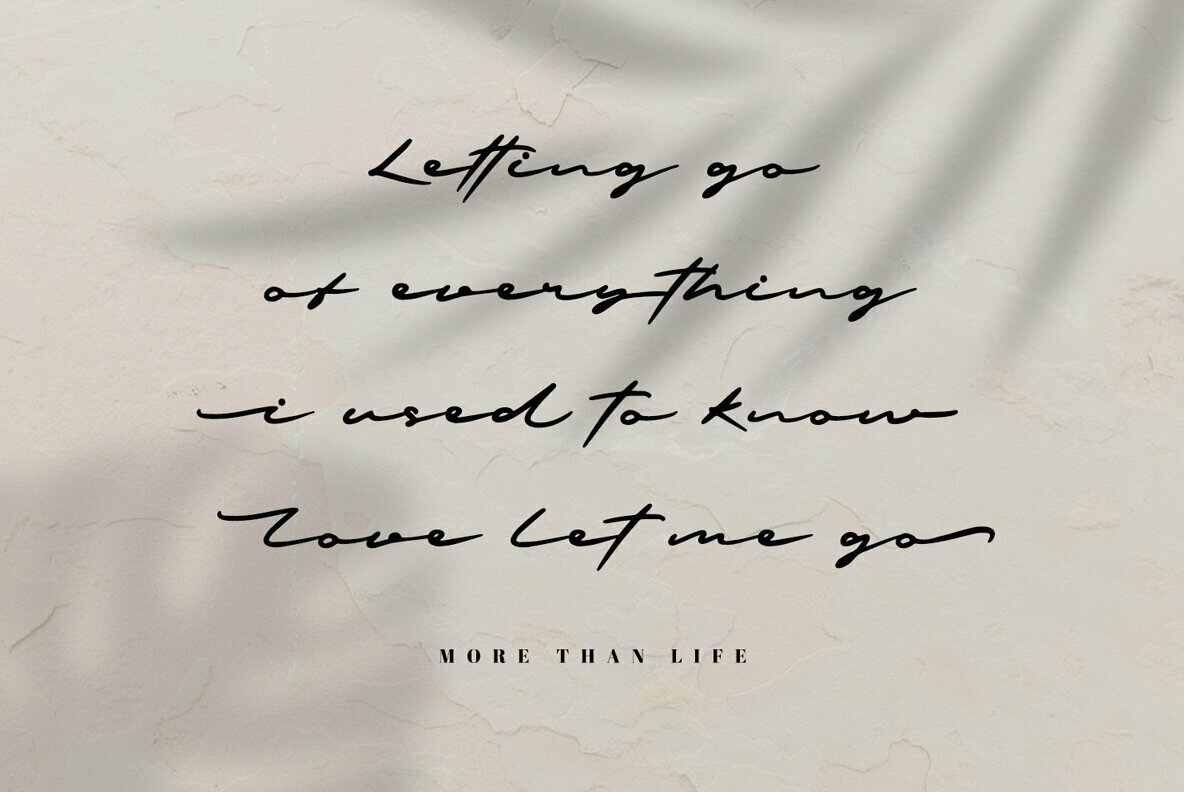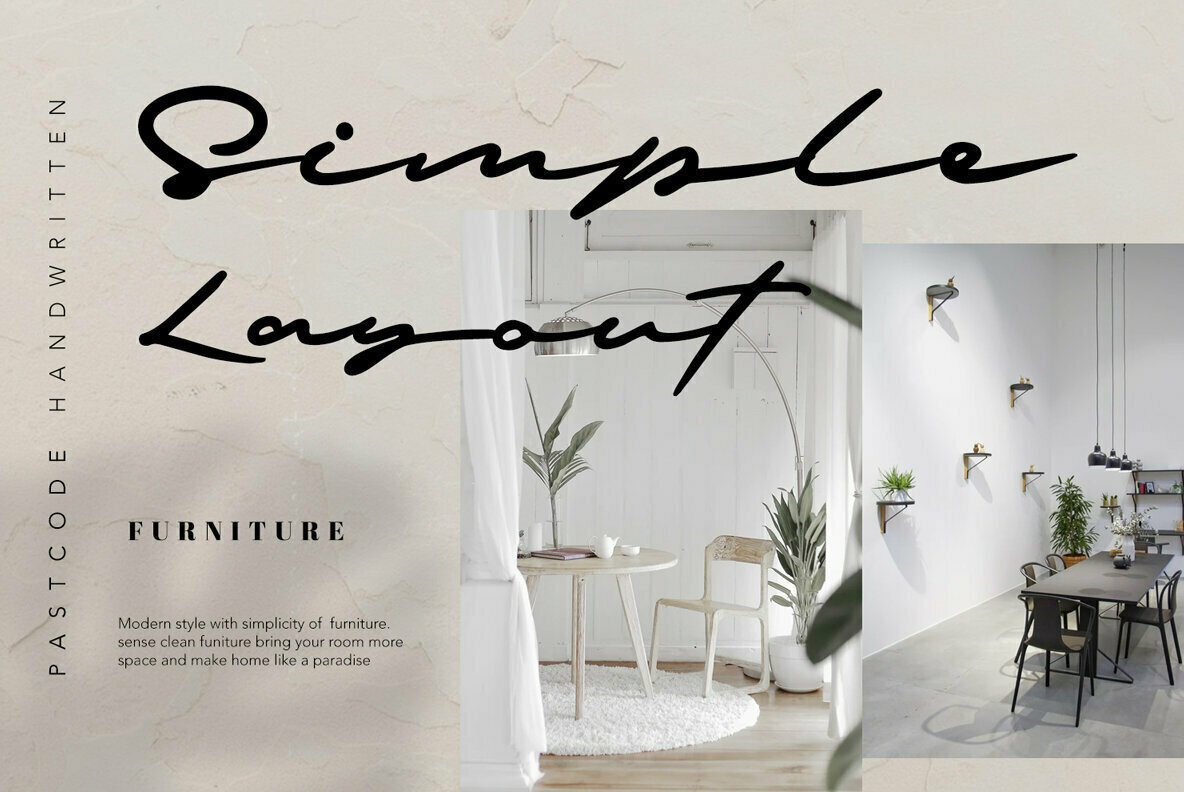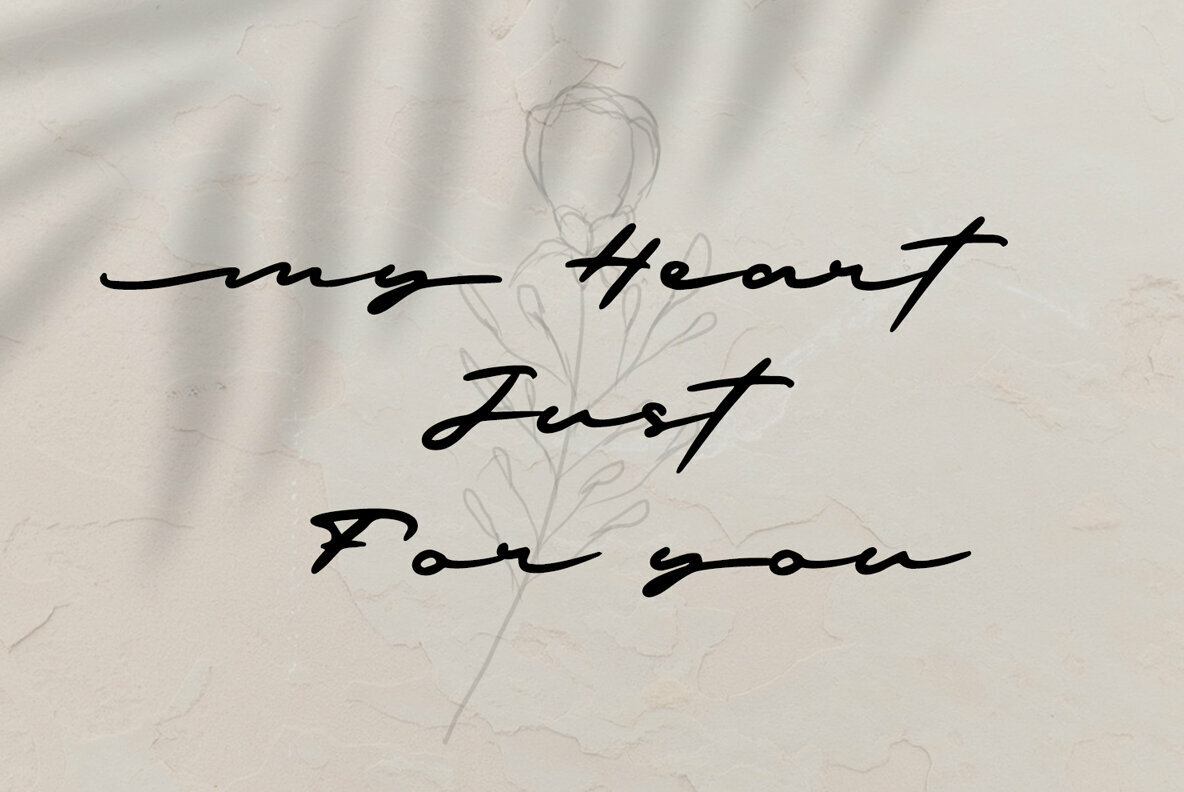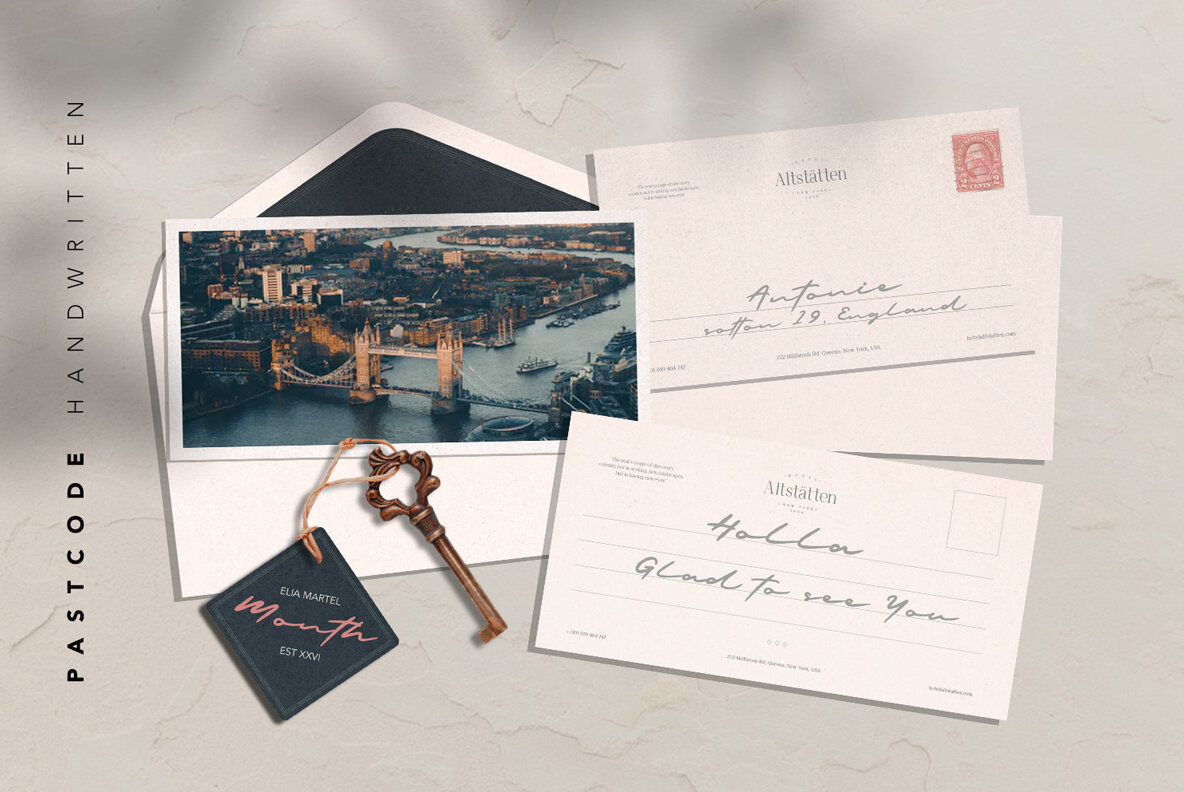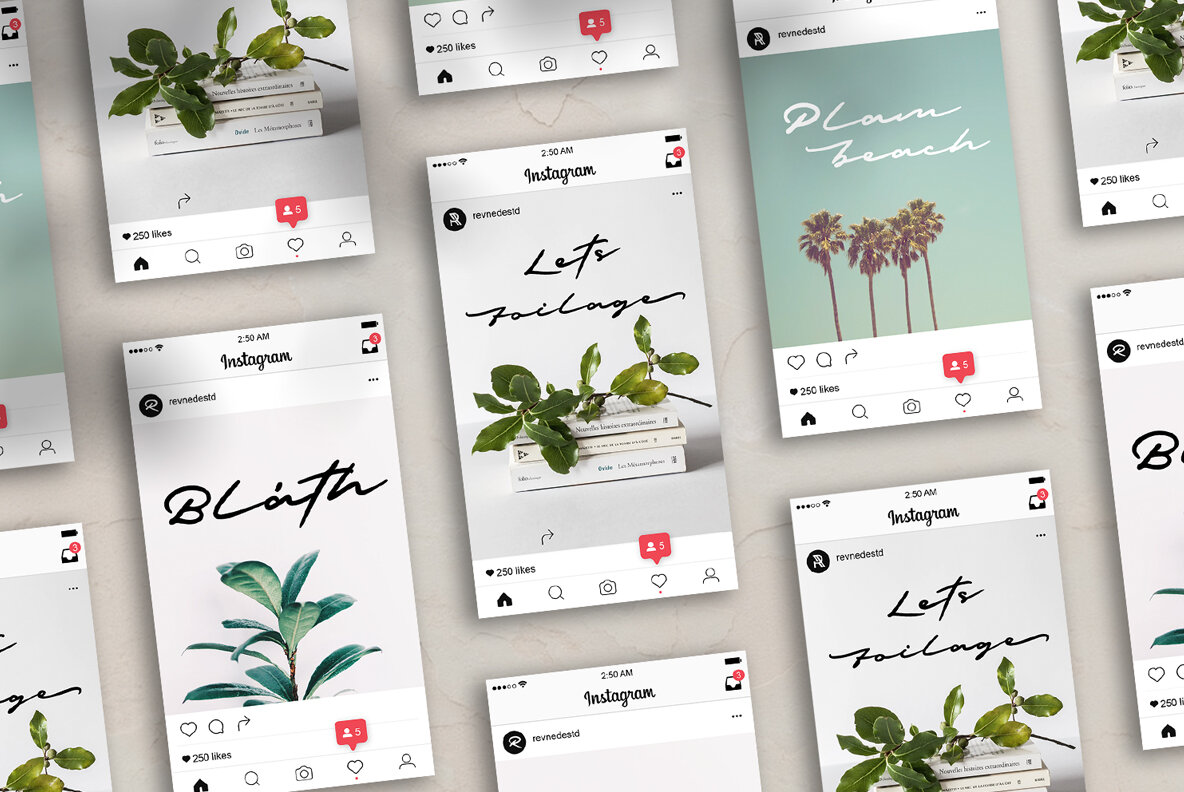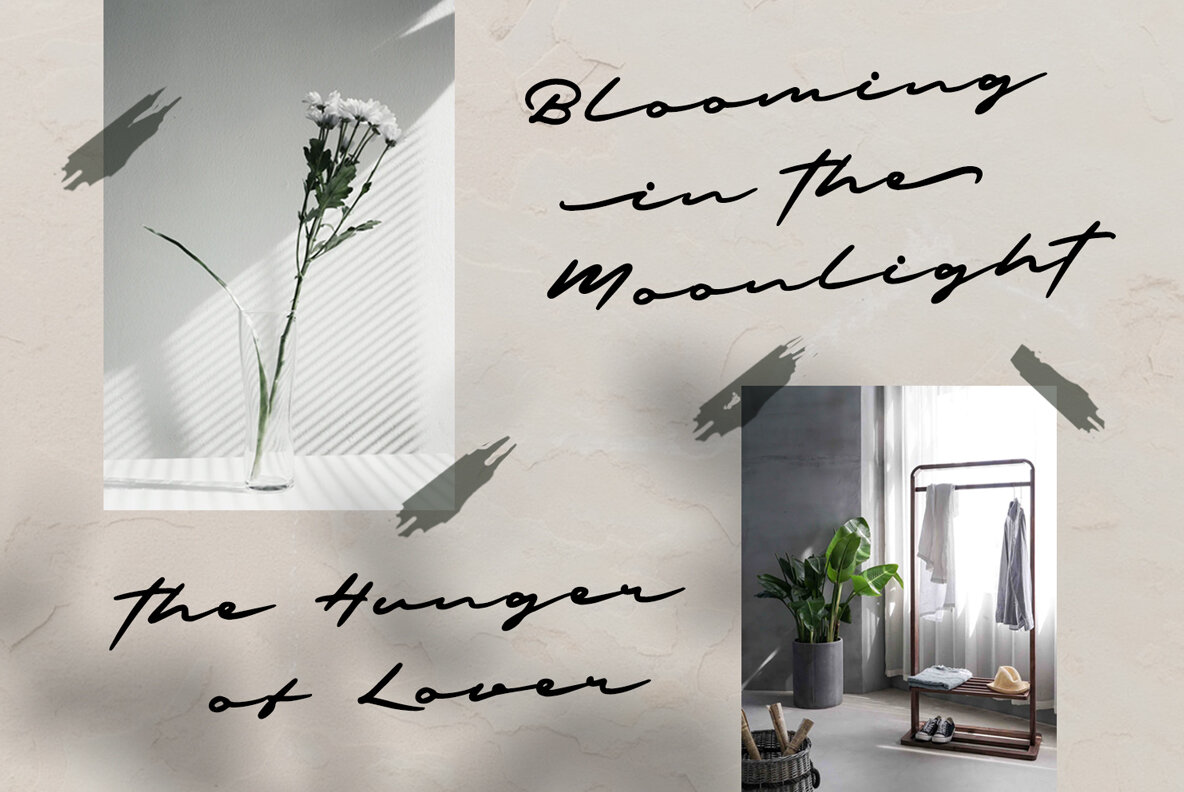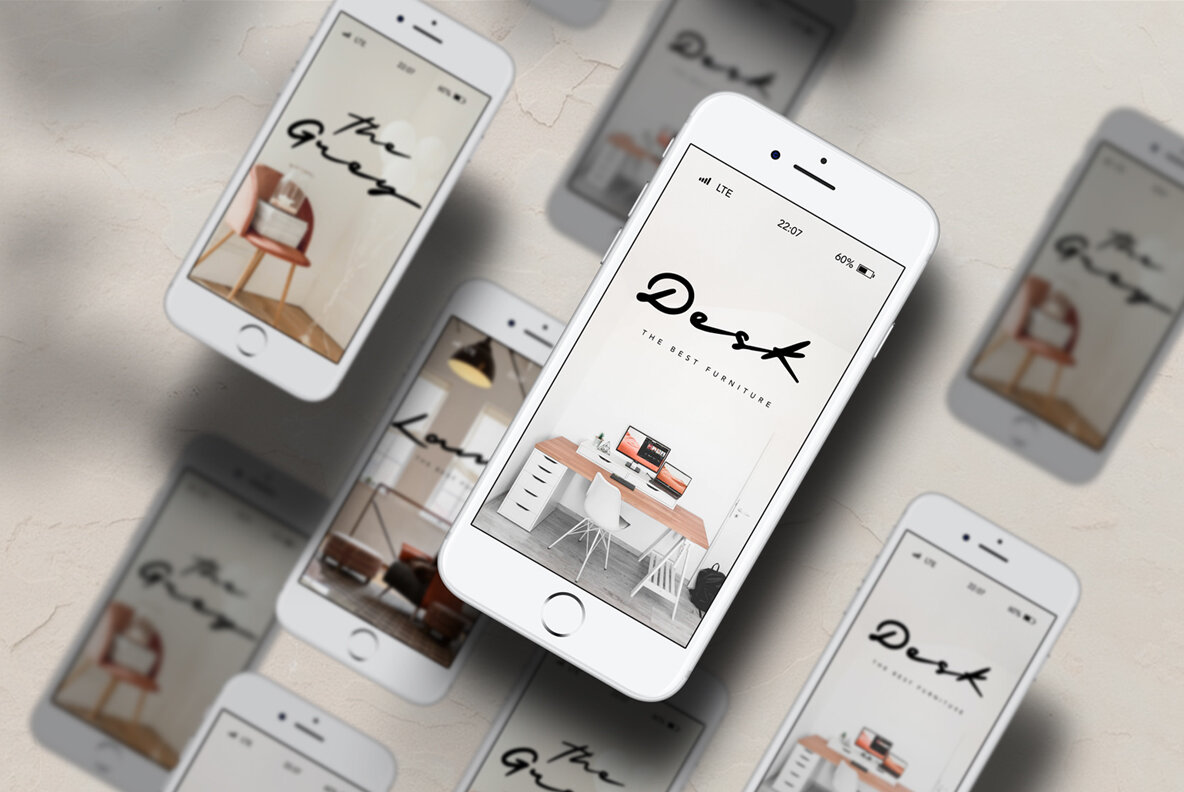
Pastcode Font
Pastcode
Embrace the charm of elegance with Pastcode, a handwriting font that imparts a sophisticated style to any design project. Ideal for crafting memorable branding, captivating invitations, and distinctive logos, its aesthetic makes it suitable for a variety of applications including social media posts, advertisements, and product designs. Features: Whether you're designing a new logo or creating eye-catching invitations, Pastcode is the refined choice for projects demanding a modern stylistic touch.Pastcode: Elegant Handwriting for Modern Designs